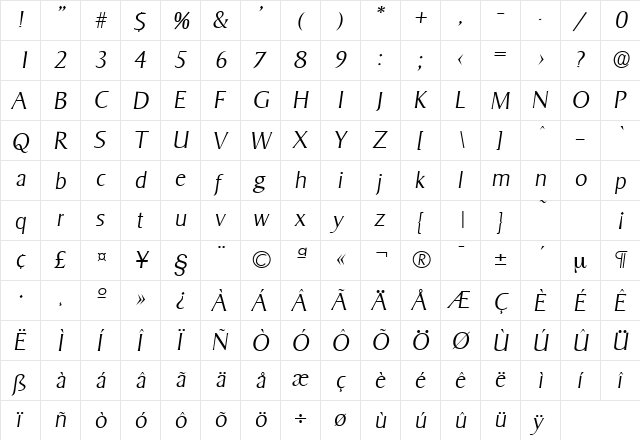
Sigvar-Serial-ExtraLight RegularItalic Font Preview
Design Context for Sigvar-Serial-ExtraLight Typeface
Sigvar-Serial-ExtraLight is a composed and adaptable typeface that performs quietly and consistently across a wide range of design contexts. Its italic angle brings a sense of urgency and motion to the letterforms. Its slender proportions lend an understated elegance to any composition.